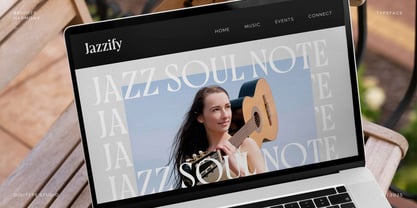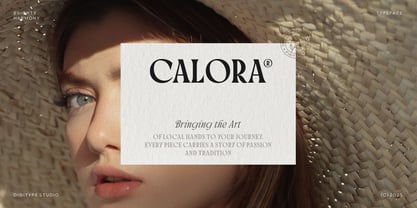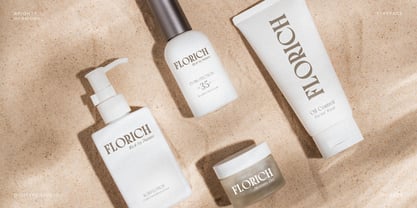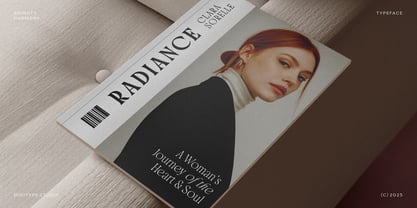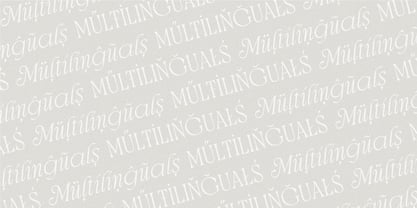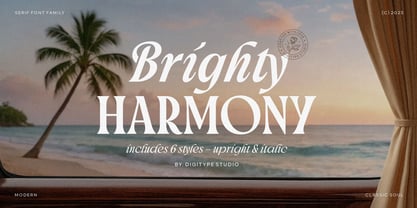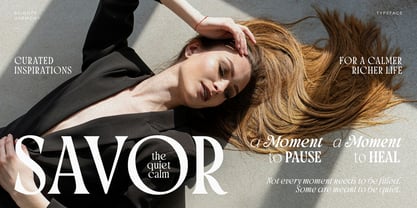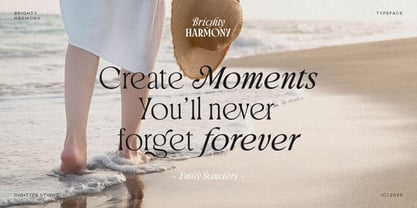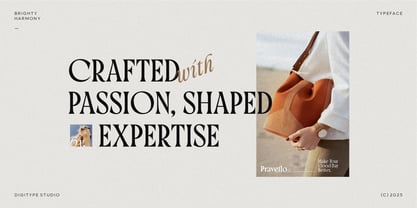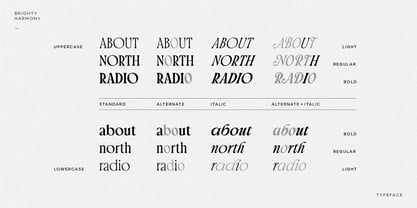
Brighty Harmony
by Digitype Studio
The Brighty Harmony Font Family was designed by Yusuf Niky Syahroni and published by Digitype Studio. Brighty Harmony contains 6 styles and family package options.
Brighty Harmony is a modern serif font family that blends classical soul with a touch of contemporary elegance. Available in 6 styles—including both upright and italic versions—this typeface is designed to offer visual harmony and flexibility across a wide range of design contexts.
The letterforms feature circular structures that are deliberately made wider, reflecting a classical approach to typography. This composition brings a visual presence that is dynamic, expressive, and full of character—ideal for branding, editorial, or logos seeking an elegant and refined look.
With its timeless sophistication, Brighty Harmony is a perfect fit for fashion design, premium packaging, brand identity, and editorial works that demand a polished yet aesthetically strong appearance.